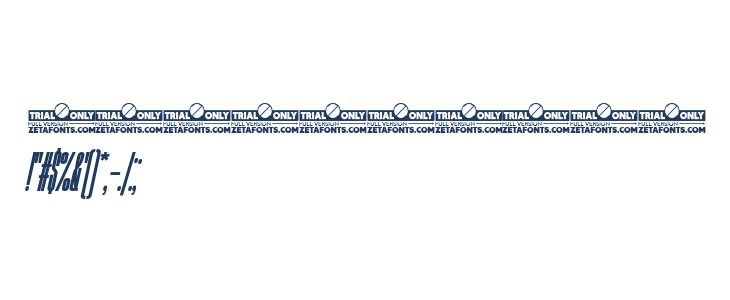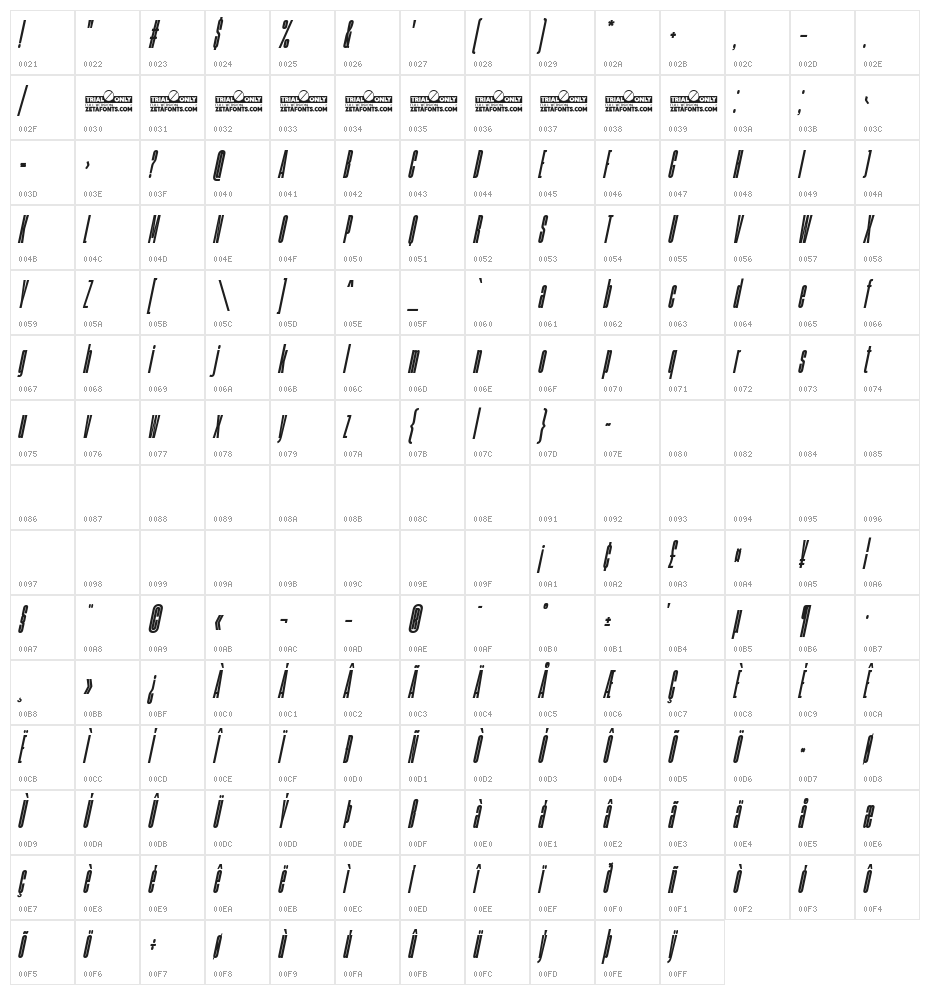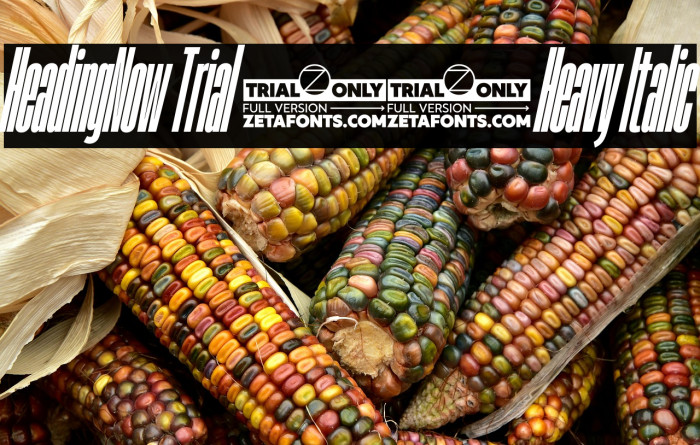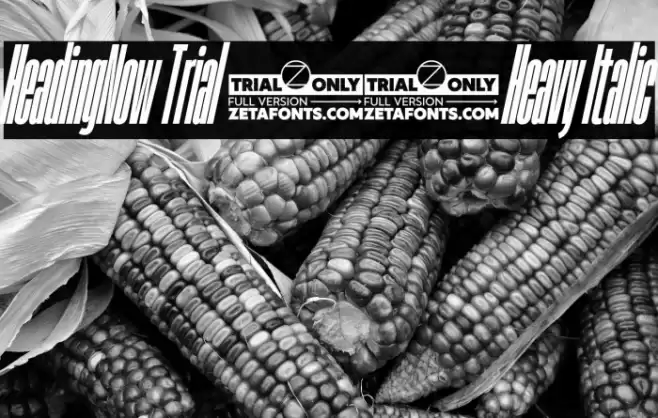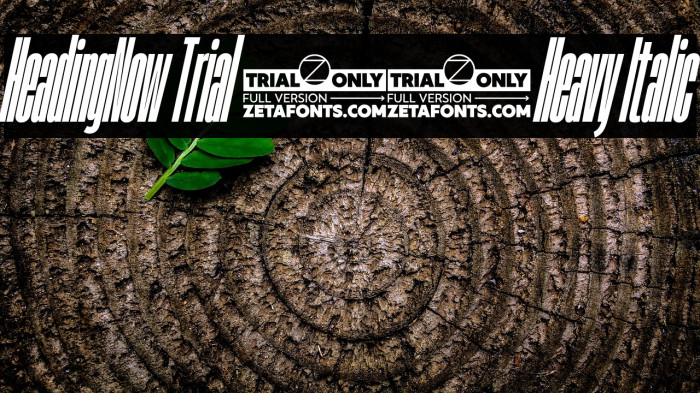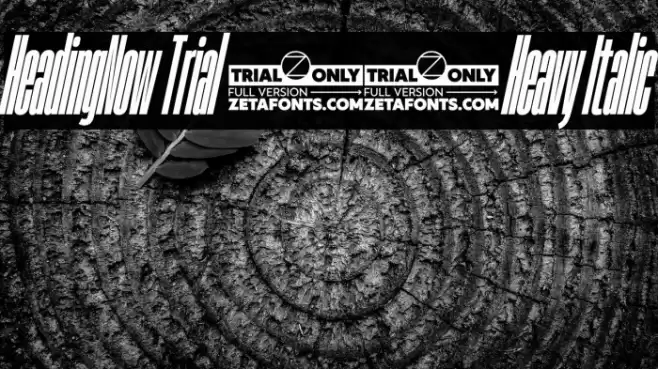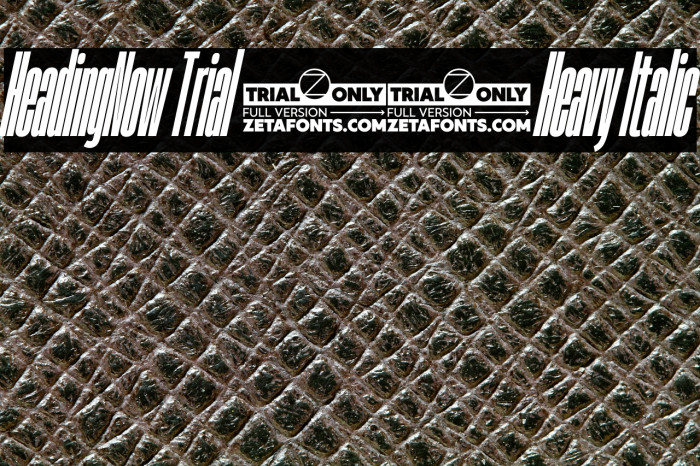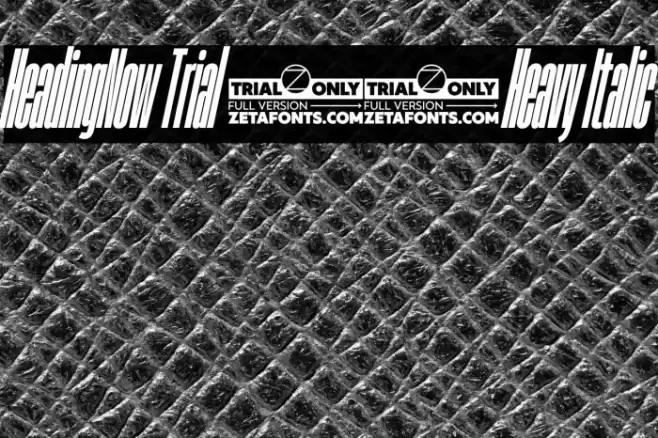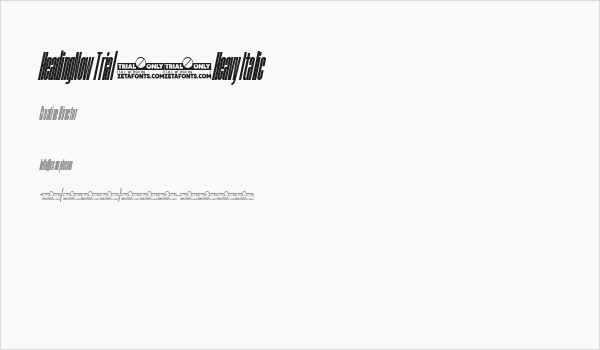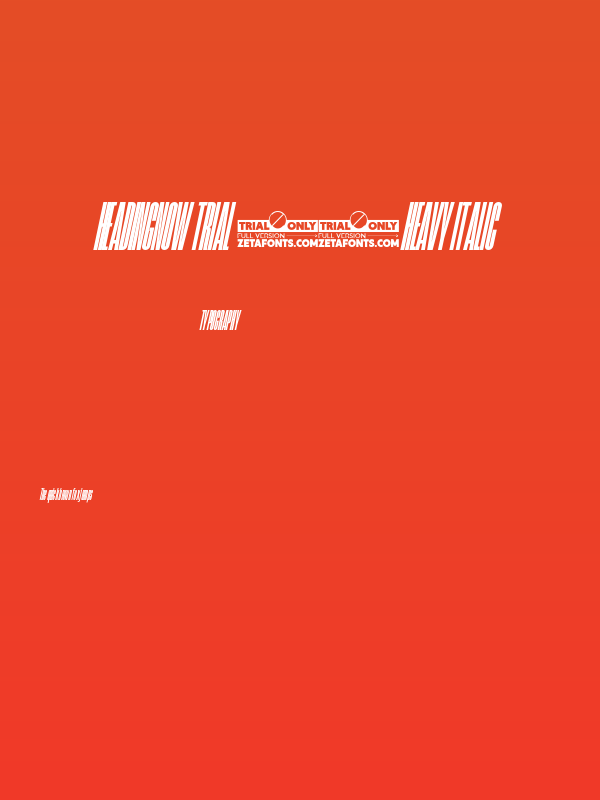
HeadingNow Trial 08 Heavy Italic Font
HeadingNow Trial 08 Heavy Italic Description
This font exhibits a bold and dynamic style with a strong italic slant, giving it a sense of motion and urgency. The characters are tightly spaced, enhancing its compact and impactful appearance. The strokes are thick and consistent, providing a uniform look across all characters. This font's heavy weight and italicized form make it ideal for attention-grabbing headlines and titles. Its modern and assertive design is well-suited for projects that require a bold statement.
| Proposed Projects | Ideal for headlines, posters, branding materials, and advertisements where a strong visual impact is needed. |